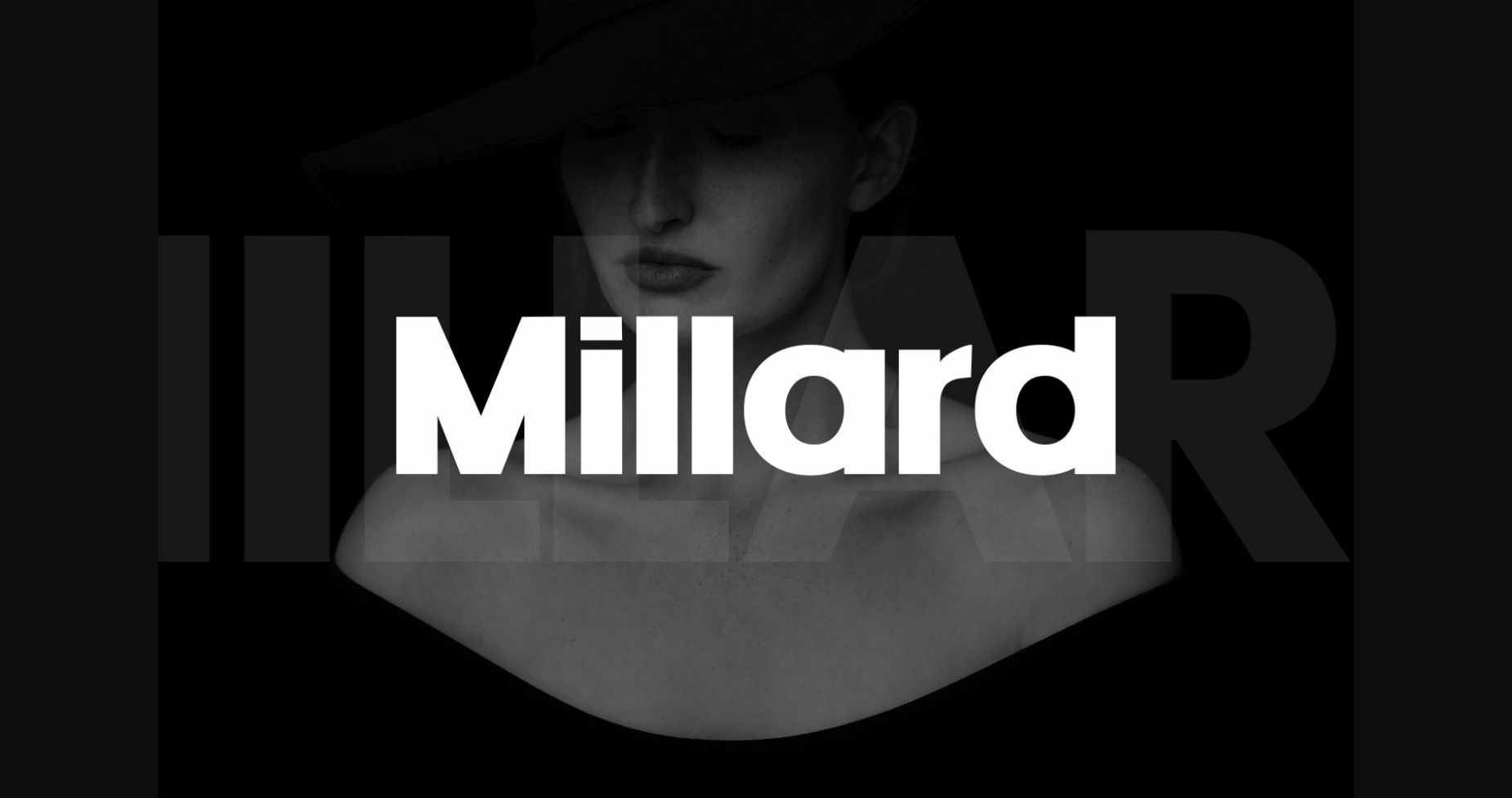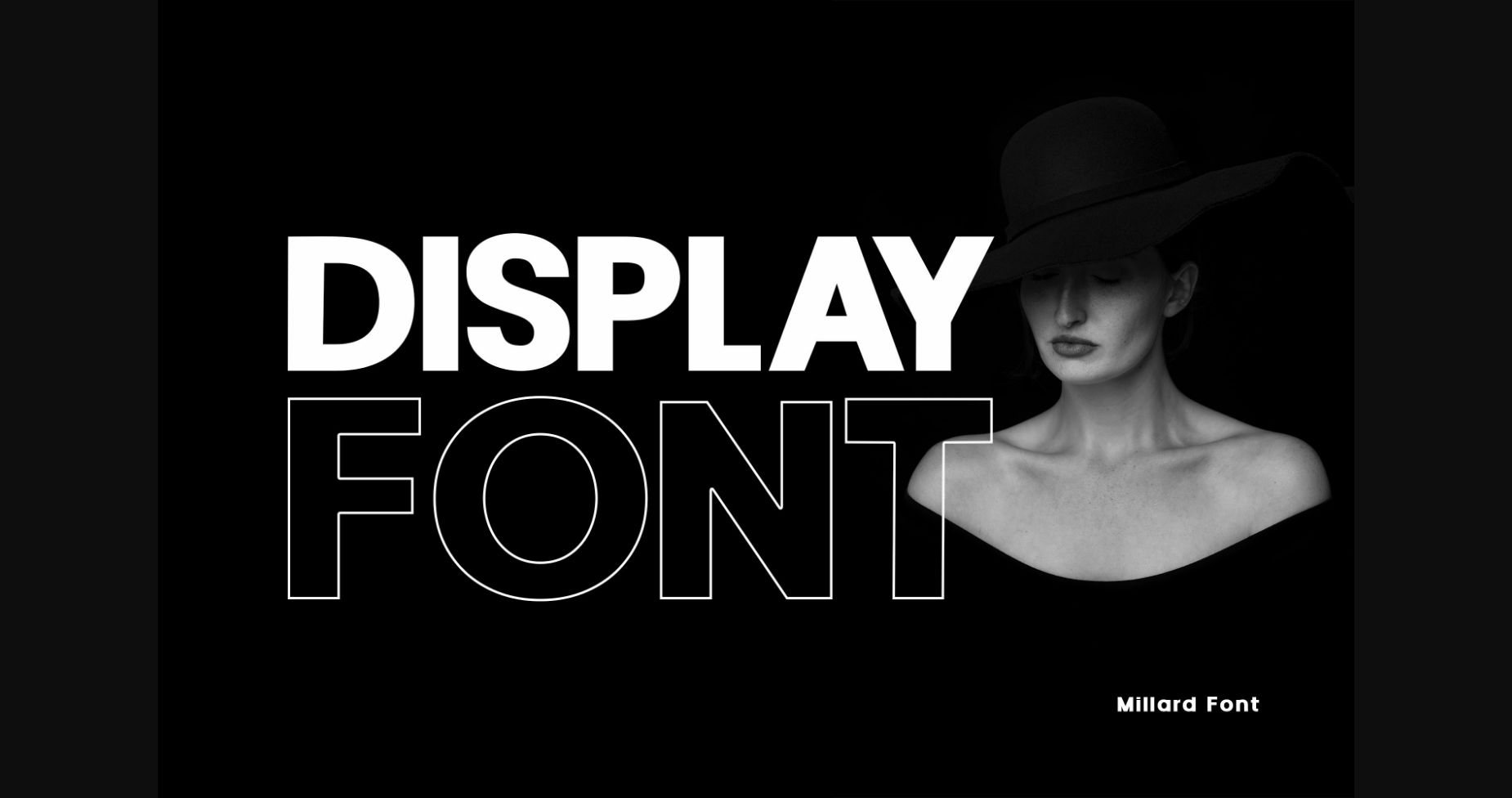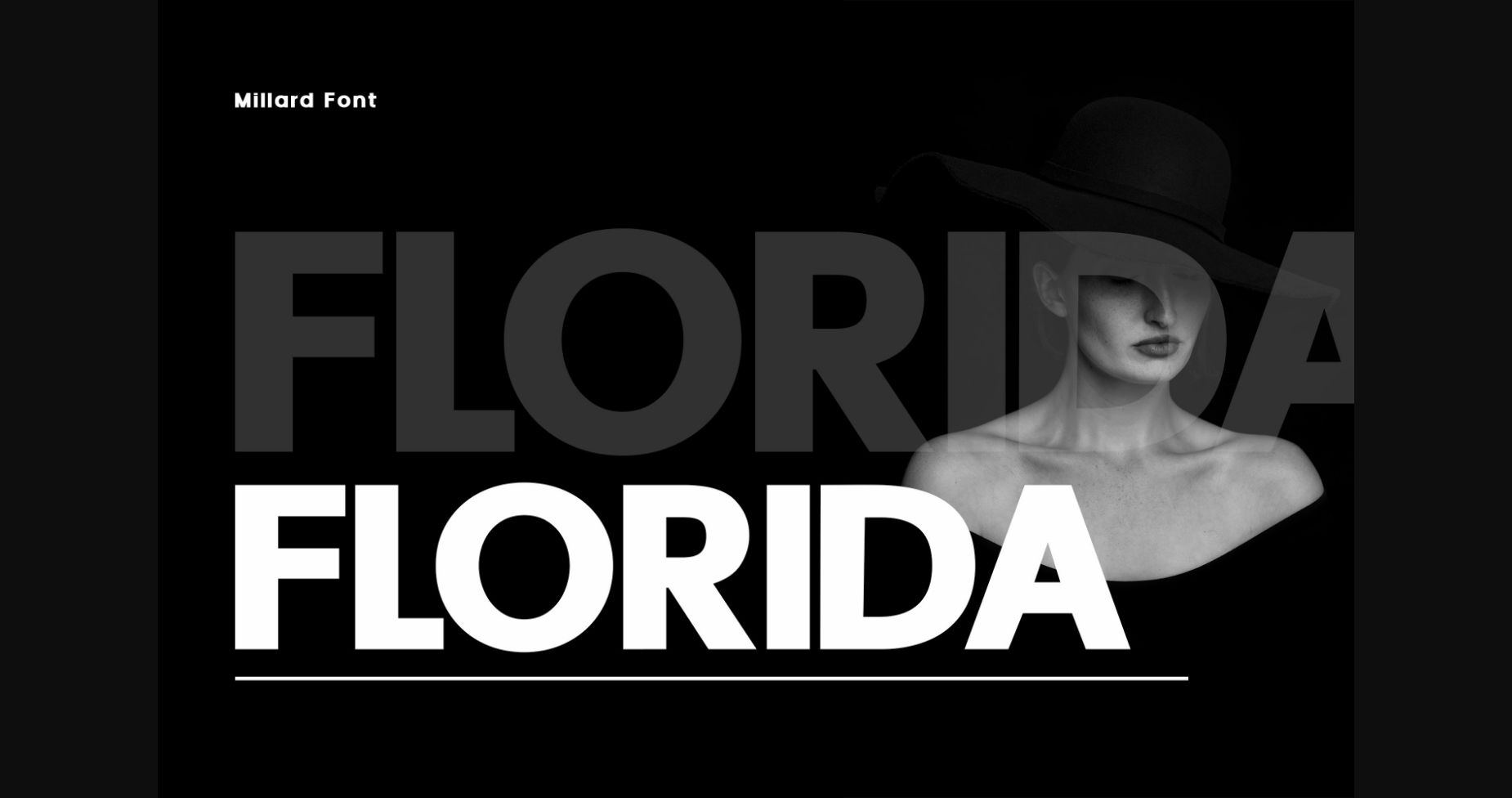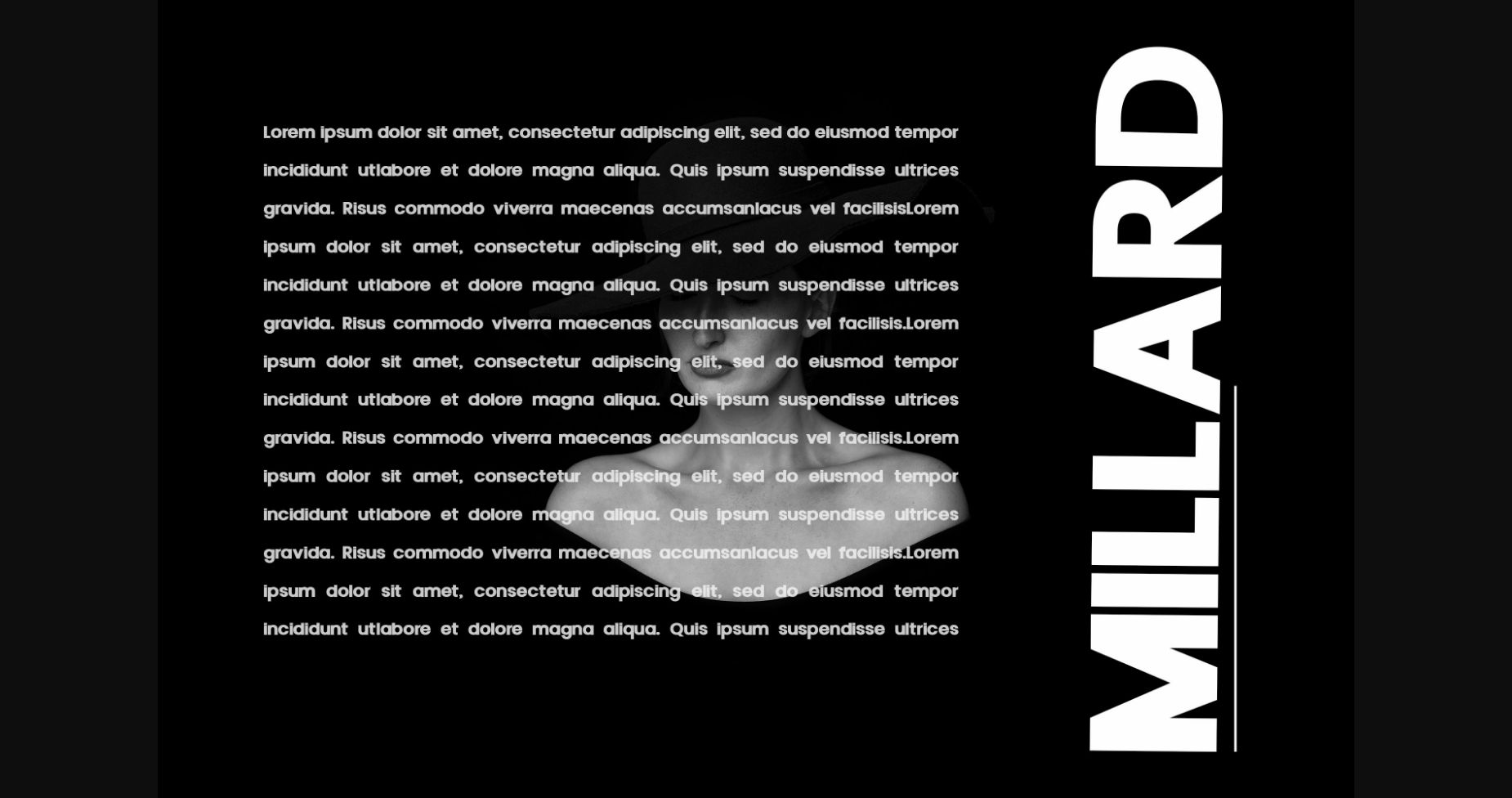
HomeSans Serif FontsMillard Font Sans Serif Fonts Millard Font FacebookXPinterestWhatsApp 1 of 6 ... Millard Font Poster 2... Millard Font Poster 3... Millard Font Poster 4... Millard Font Poster 5... Millard Font Poster 6... About Millard Font Millard is a minimal and neat sans serif font. It can easily be matched to an incredibly large set of projects, so add it to your creative ideas and notice how it makes them stand out! DOWNLOAD NOW People also explored Goshawk Font Sunttolayo Font Dreamking Font Hamida Lovely Font Drop Dripping Font Vintage Font Petri Plate Font Sukardi Font Mensura Slab Family Font 400 0 TagsMillardMillard Font Previous articleDurkin FontNext articleRope Font LEAVE A REPLY Cancel reply Comment: Please enter your comment! Name:* Please enter your name here Email:* You have entered an incorrect email address! Please enter your email address here Website: Save my name, email, and website in this browser for the next time I comment. Personal Use Free The Brighton Personal Use Free Read more about this font Styledeep Personal Use Free Read more about this font Black Personal Use Free Read more about this font Airmole Personal Use Free Read more about this font BLOG Using Fonts in Digital Marketing: Tips to Strengthen Your Brand Identity In the realm of digital marketing, every visual element plays a crucial role in shaping a brand's identity, and fonts are no exception. The... Free vs Paid Fonts: Why Investing in Premium Fonts Is Worth It Best Fonts for T-Shirt Design – Top 2025 Picks Transform Your Website: Elevate Your Typography with 7 Best Web Font Generators